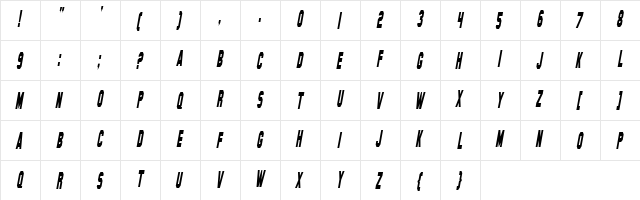
Hollywood Hills Condensed Italic
Design Context for Hollywood Hills Condensed Typeface
Hollywood Hills Condensed echoes the hand-painted signage and woodblock typography of the American frontier, with a warm, rugged personality. Its italic angle brings a sense of urgency and motion to the letterforms.
A natural fit for craft spirits, ranch branding, rodeo events, and Americana-inspired design work.
Font Pairing: Combine Hollywood Hills Condensed with a simple slab or neutral sans — period-accurate companions reinforce the vintage feel without competing for attention.
Pro Tip: Use Hollywood Hills Condensed for short, impactful bursts of text — it shines in poster headlines and product names rather than extended copy.